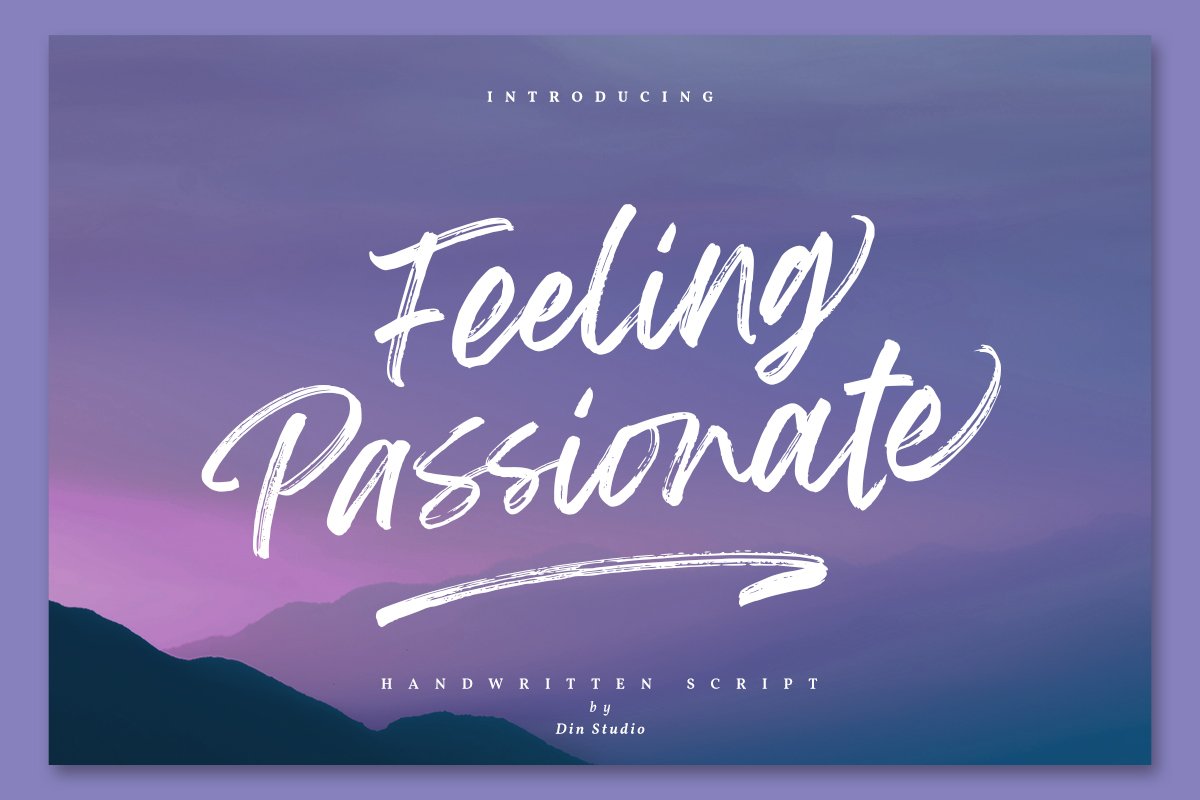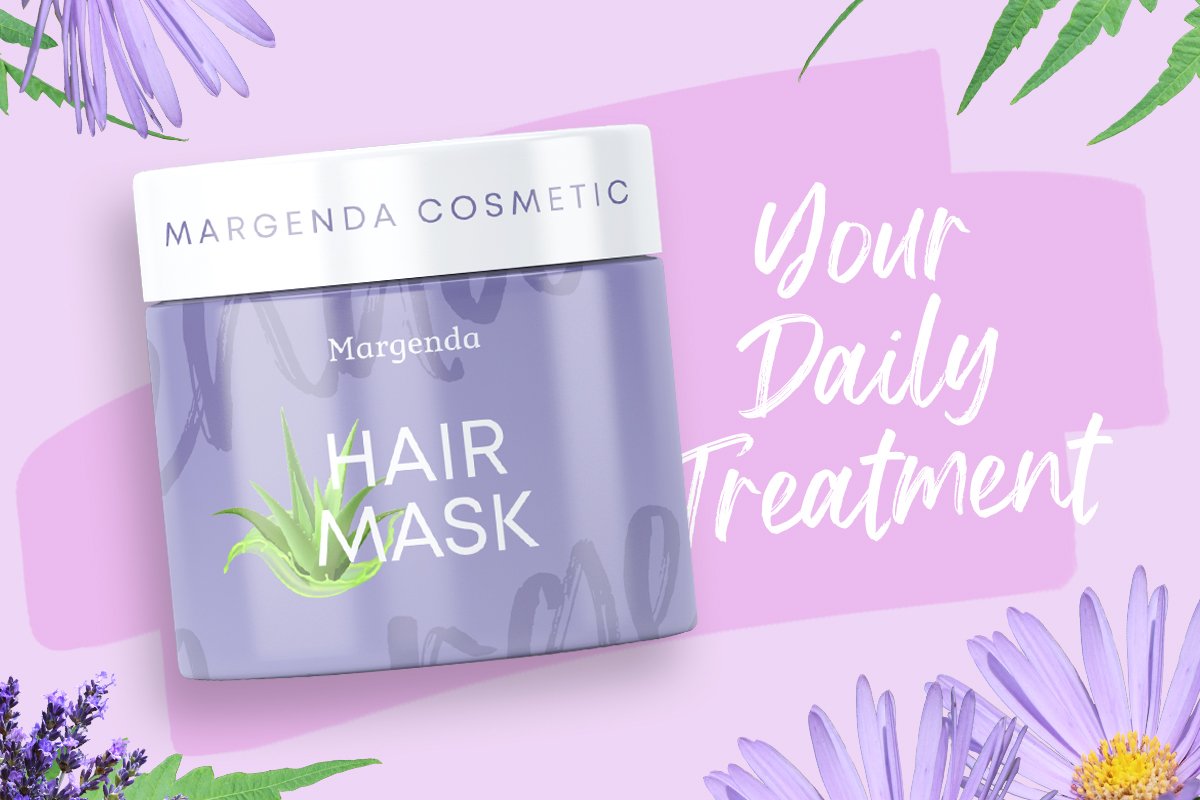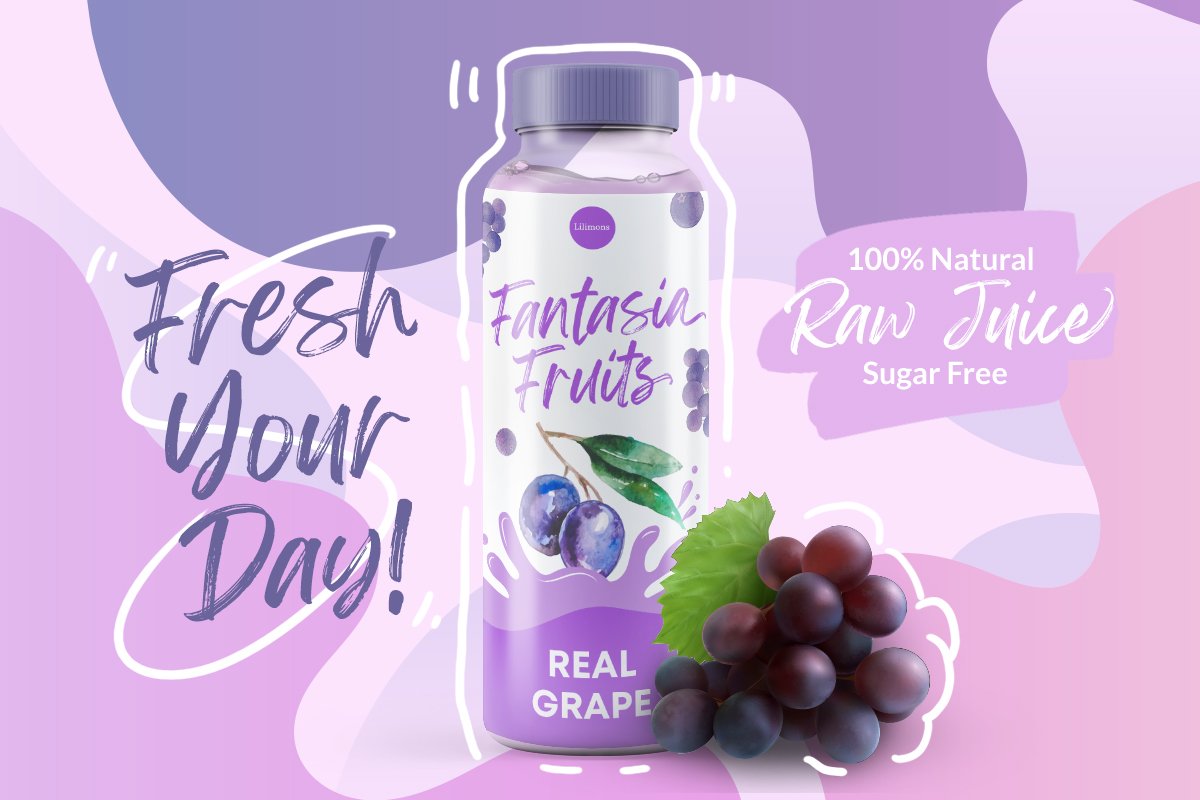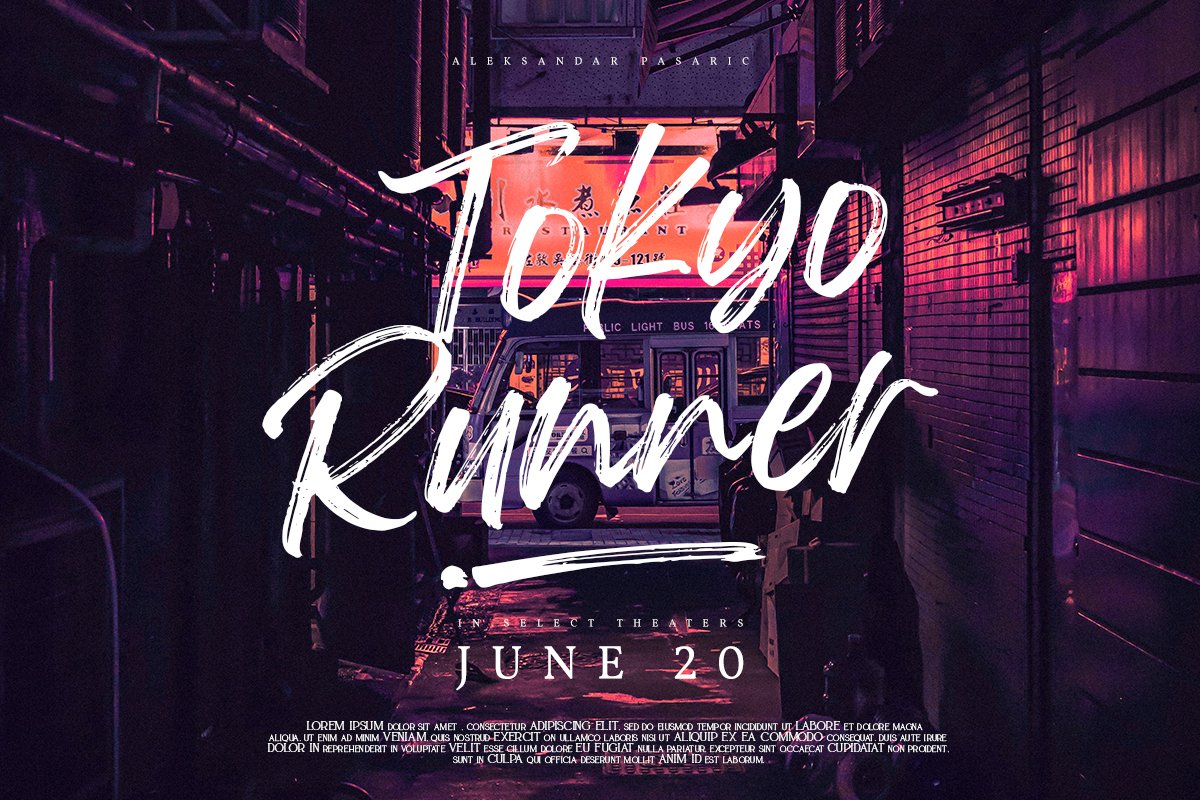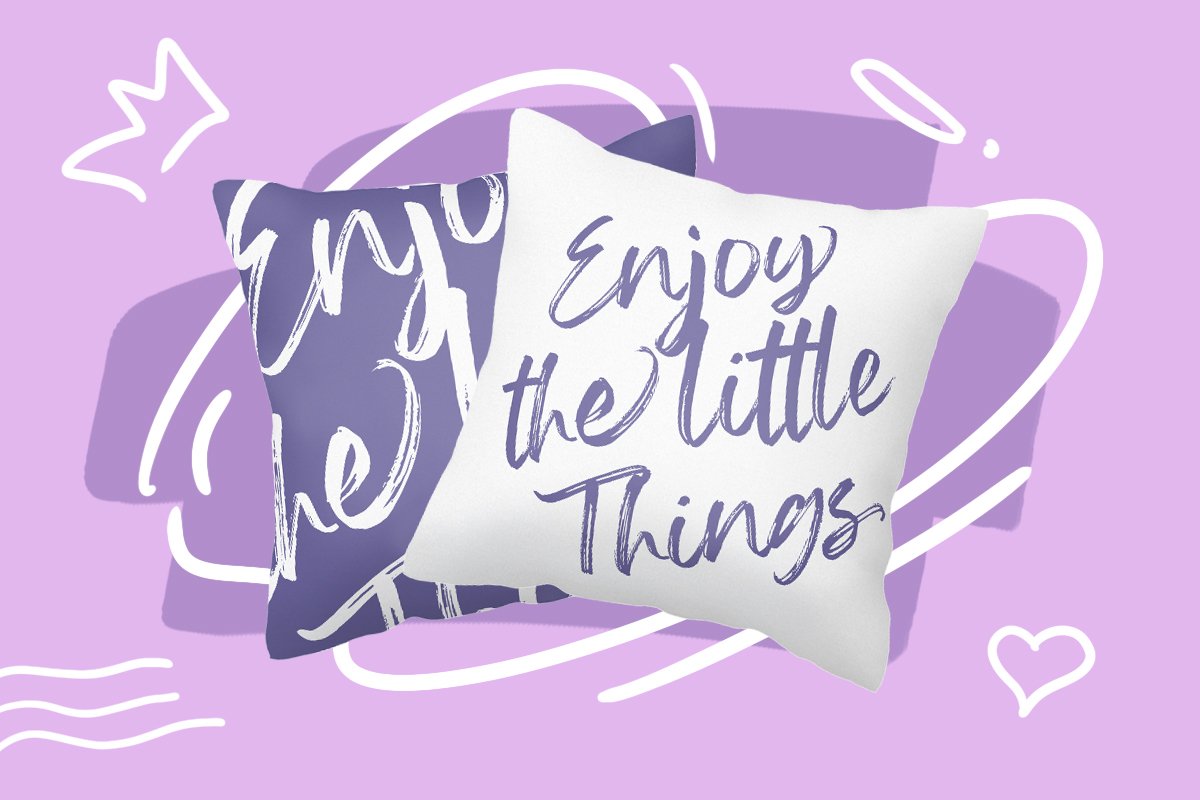
About the Feeling Passionate Brush Font
Please visit this page for more licenses : https://din-studio, com/product/feeling-passionate-brush-font/Feeling Passionate is a casual and beautiful brush font, It will make your design project more beautiful, This font is suitable for various designs, such as posters, banners, logos, book covers, headings, printed products, merchandise, social media, and more
Find out more ways to use this font by taking a look at the font preview, Features :78 Beautiful Alternates15 Beautiful Ligatures52 SwashesPUA encodedMulti-lingual SupportNumerals and PunctuationsEnjoy your experience with this font and feel free to contact us for further product information or trouble complaints